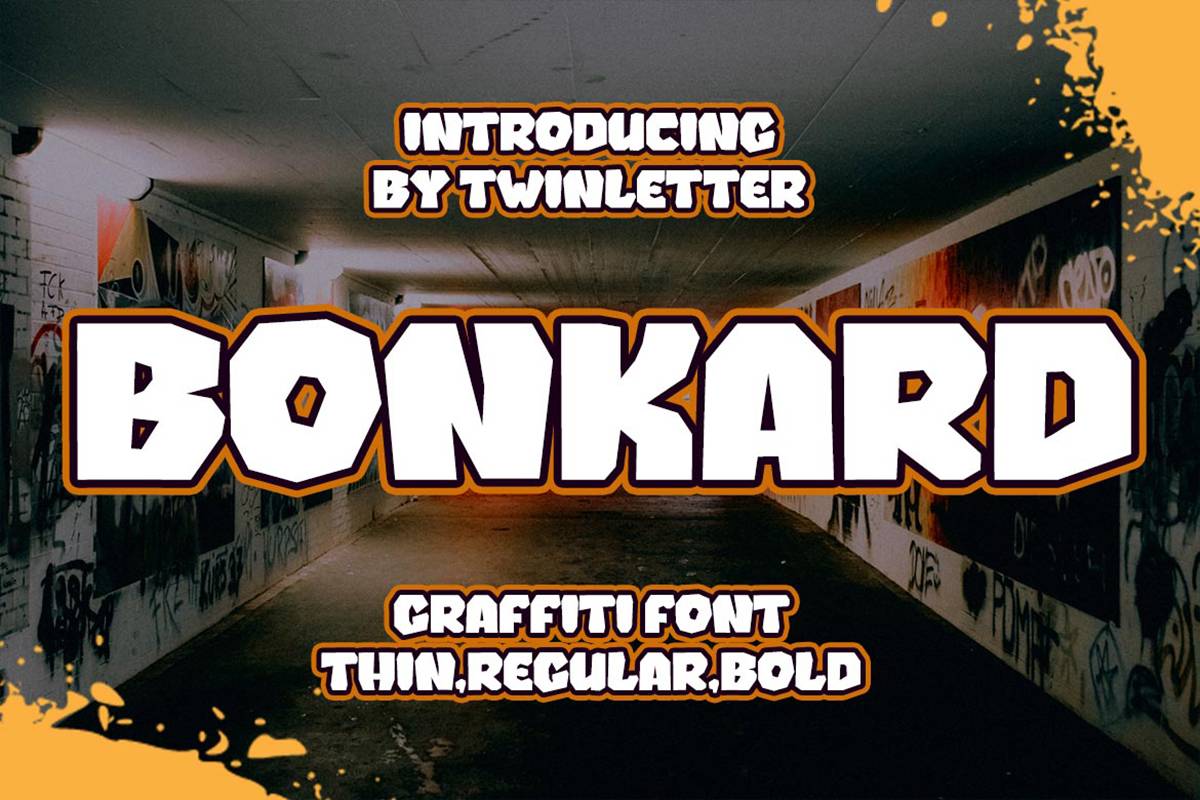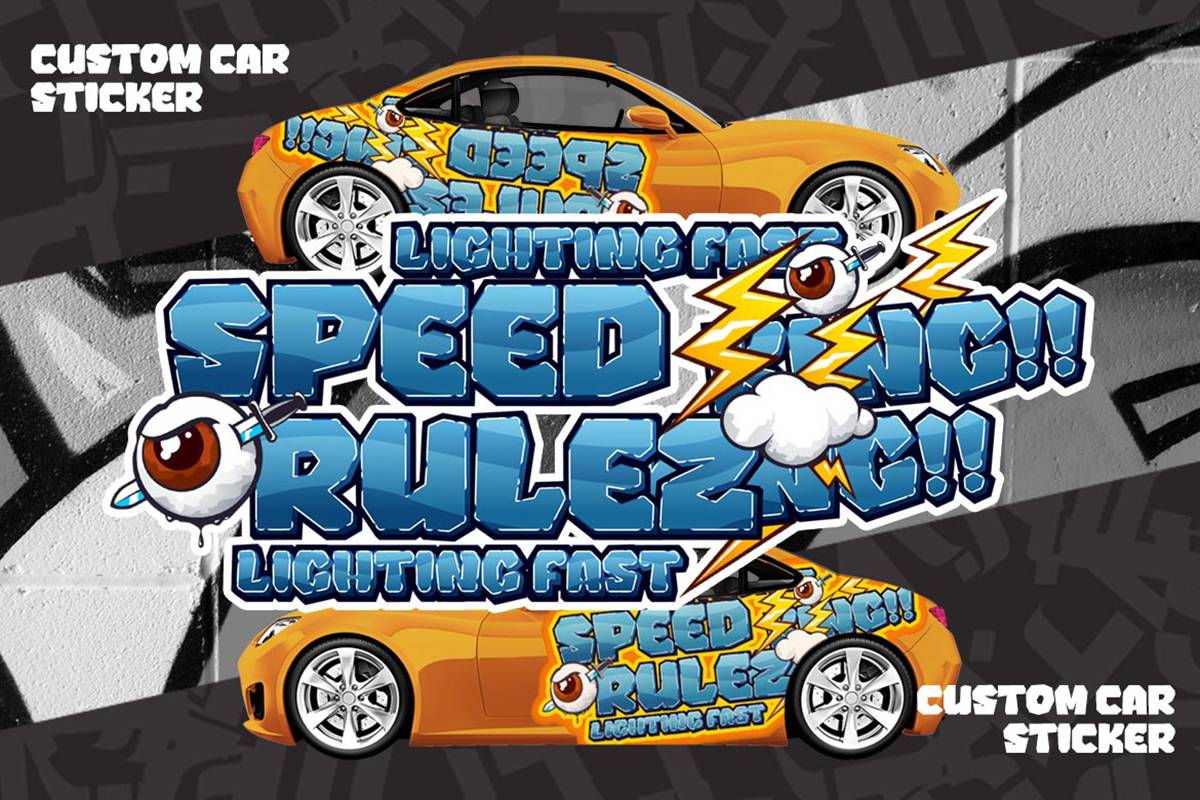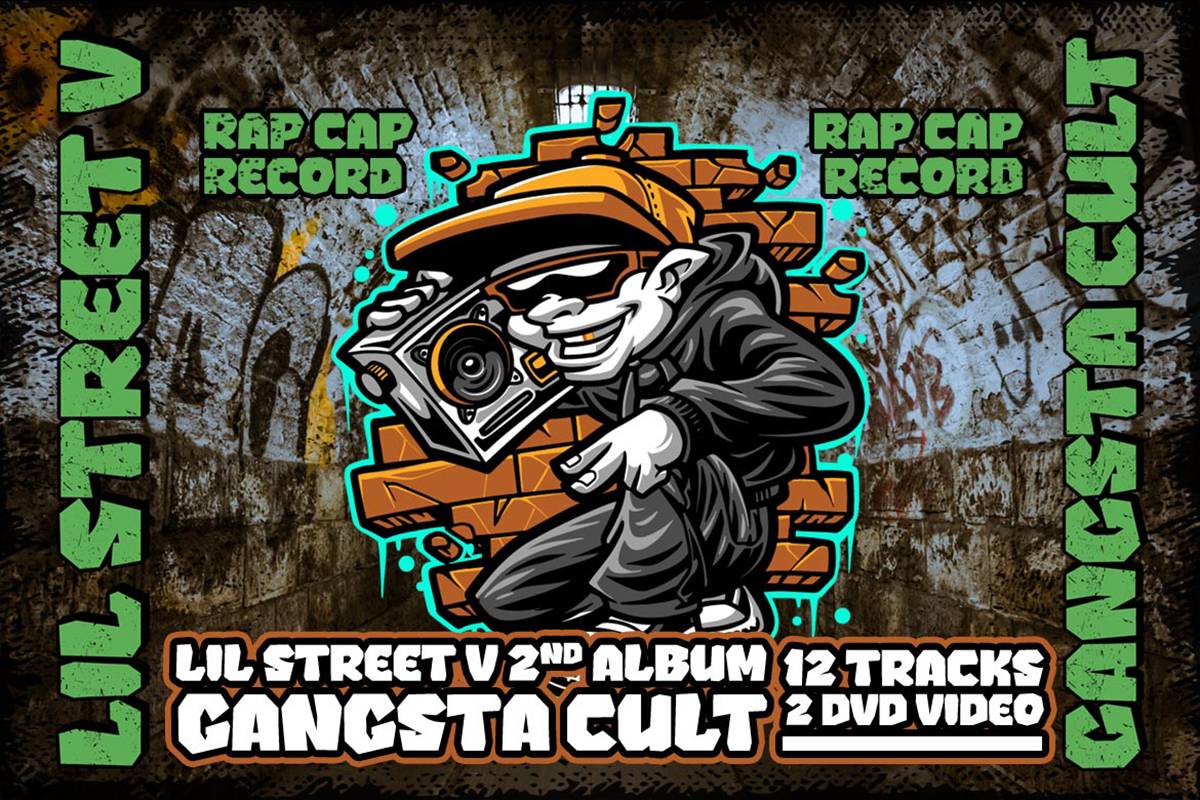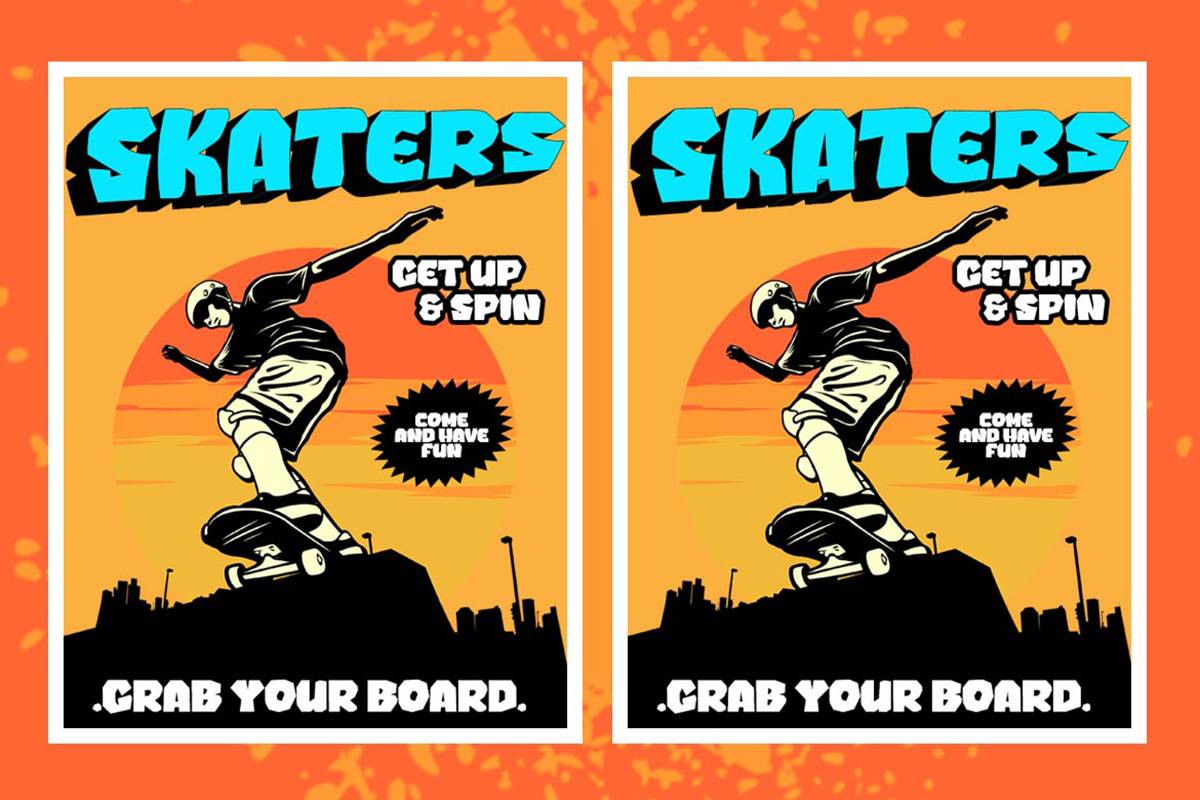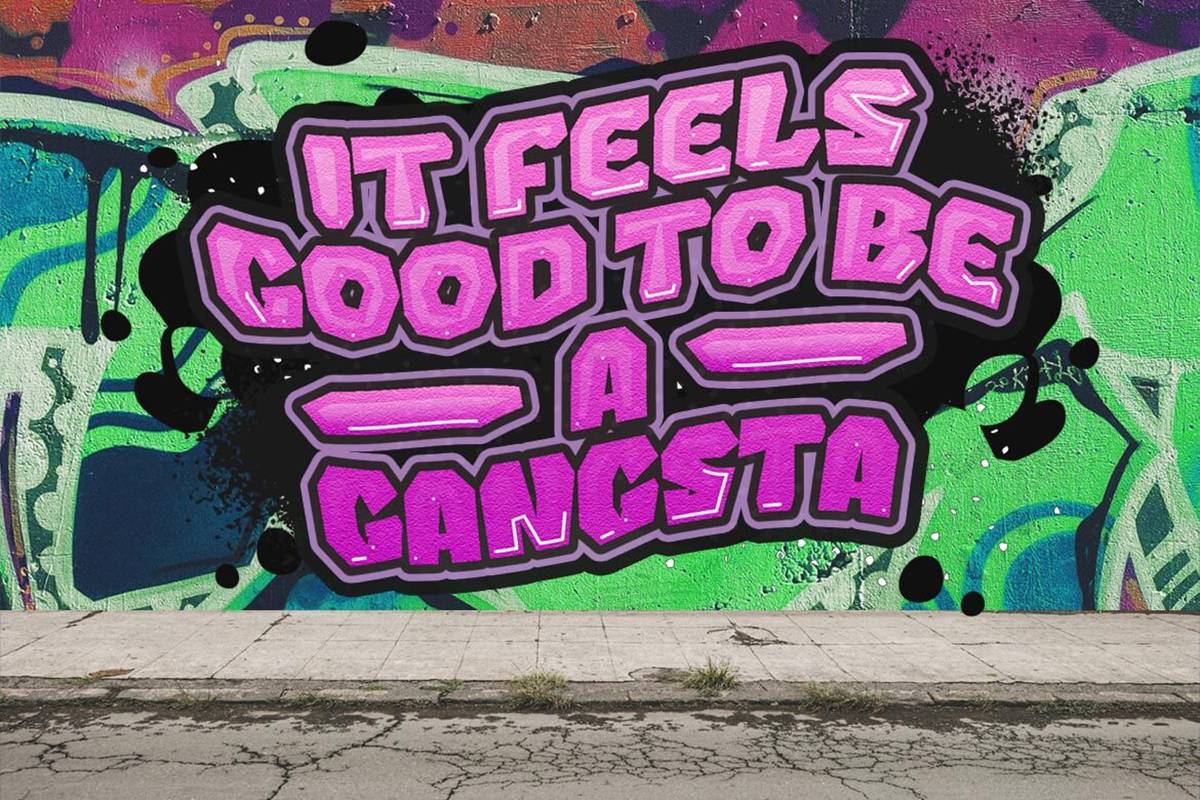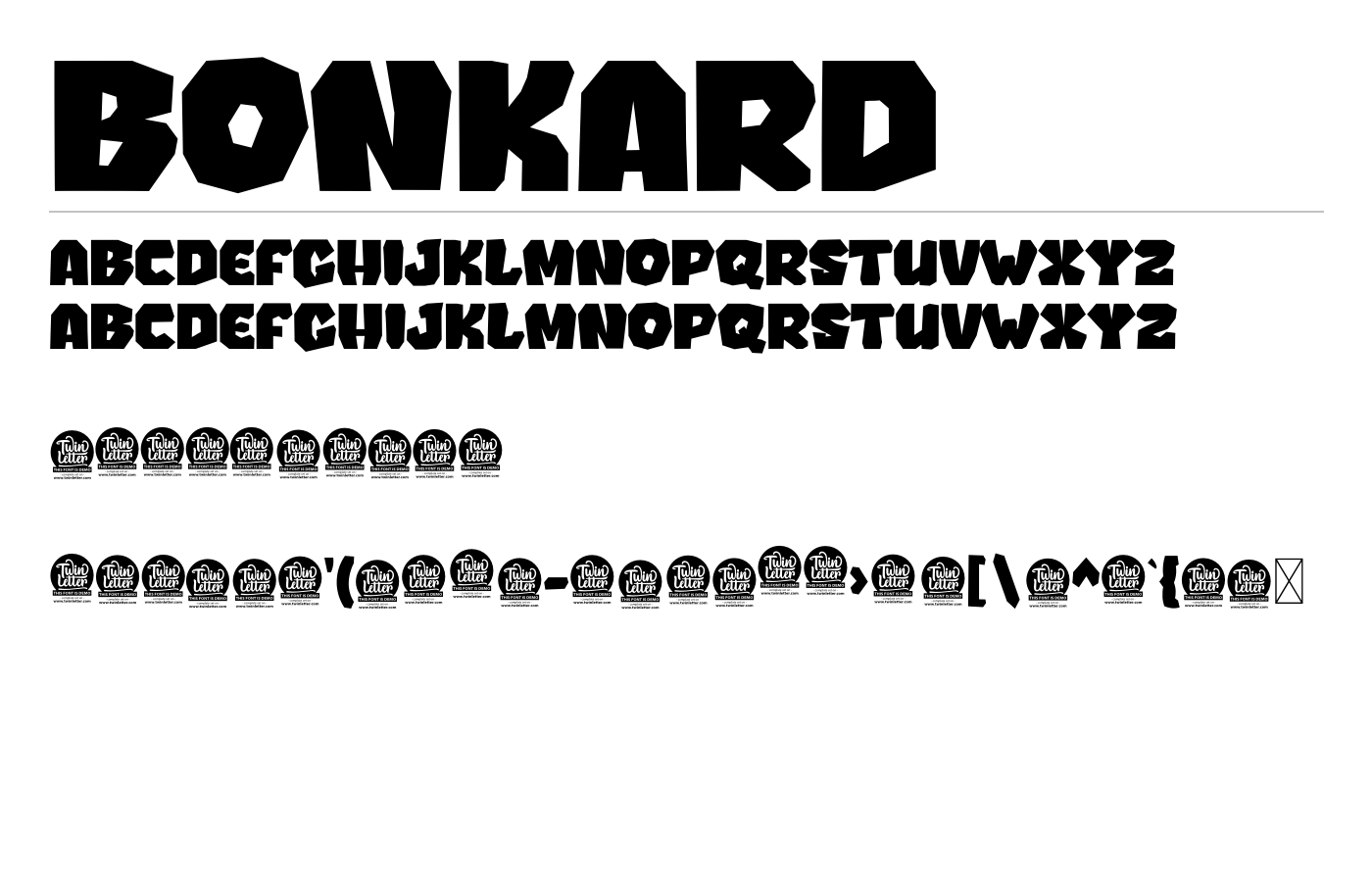
Bonkard is a bold, heavy-weight sans serif font with a rugged, geometric style that features sharp, irregular edges giving it a handcrafted, almost stone-carved appearance. Its uppercase-only letterforms convey strength and impact, making it ideal for attention-grabbing headlines, logos, posters, and branding that seeks a powerful, edgy, and unique visual identity. This font works best in creative contexts where a strong, masculine, and adventurous feel is desired.
Bonkard Font